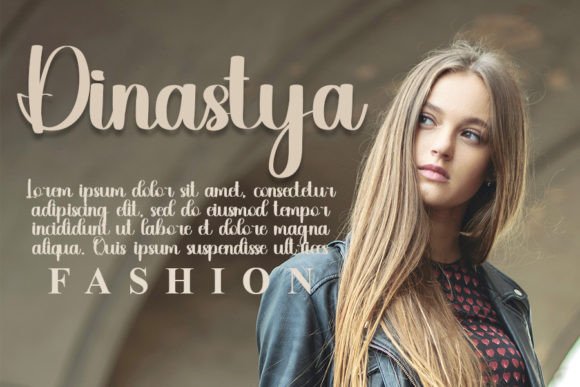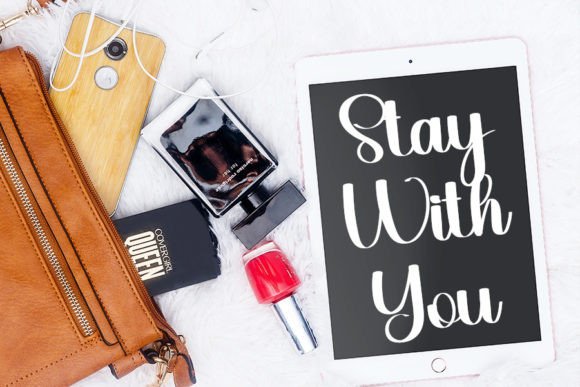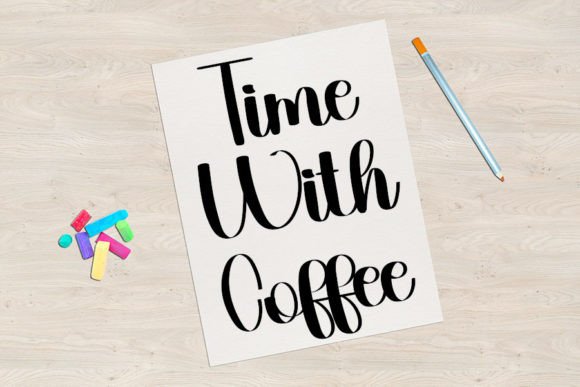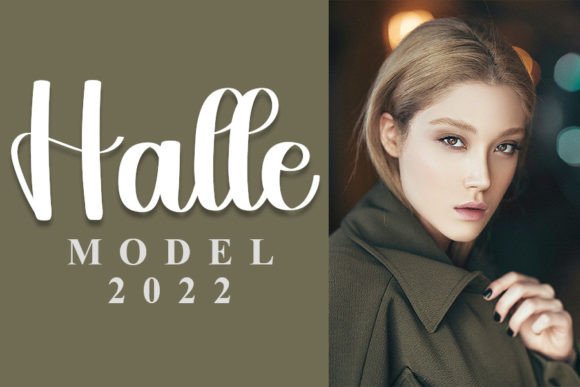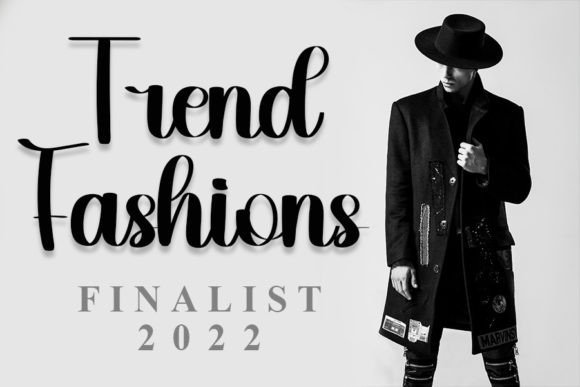
Introduction to Santa Font
Have you ever found yourself scrolling through design inspiration boards, only to stumble upon a beautifully crafted logo that instantly sparks an idea for your next creative project? For designers, this is a moment of pure magic. And for those who use the right design resources, it can be a game-changer. One such design resource that has been making waves in the design community is the Santa Font – a beautiful and refined script font that’s perfect for adding a touch of elegance to your work.
With its classy, modern look, the Santa Font is an ideal choice for logos, branding, invitations, stationery, and much more. Whether you’re working on a free download project or need a high-quality font for a commercial design, the Santa Font is sure to impress. Plus, its transparent background makes it easy to use with any design element, giving you the freedom to create something truly unique.
As a valuable design resource, the Santa Font is a must-have for any designer looking to elevate their creative projects. So, let’s dive in and explore the world of Santa Font – and discover why it’s become a favorite among designers.
Key Features of Santa Font
- High-quality, vector-based font design, perfect for creative projects requiring a festive touch.
- Unique, hand-drawn design elements that evoke a sense of whimsy and magic, ideal for holiday-themed creative projects.
Honest Review: Santa Font
I recently stumbled upon the Santa Font and was eager to dive in and see what it had to offer. As a designer, I’m always on the lookout for new and exciting design resources to elevate my creative projects.
- ✨ The Santa Font is incredibly festive and perfect for holiday-themed projects. The font’s playful feel is sure to bring a smile to anyone’s face.
- ⚠️ The font is only suitable for holiday-themed projects, which might limit its use outside of Christmas and New Year’s.
- ⚠️ The font is not as versatile as some other high-quality fonts, which might make it less appealing to designers who prefer a more neutral design resource.
Overall, I was impressed with the Santa Font’s unique style and free download option. While it may have some limitations, it’s a great addition to any designer’s toolkit, especially for holiday-themed projects.
Tips for Getting the Most Out of Santa Font
Experiment with different font sizes and colors to achieve a unique look.
Combine the Santa Font with other design resources for a high-quality creative project.
Use the Santa Font for holiday-themed designs, such as Christmas cards and gift tags.
Use the font to add a touch of whimsy to your designs.
Alternatives to Santa Font
Great Vibes is a beautiful, high-quality script font perfect for creative projects that require a touch of elegance. It’s ideal for use in designs where a smooth, flowing feel is desired. Great Vibes is available for free download with a transparent background, making it a great alternative to Santa Font for designers.
Comparison to Santa Font: Great Vibes has a more refined and sophisticated look, whereas Santa Font is often used for more playful and whimsical designs. Great Vibes is a better choice when you need a high-quality script font for a design project.